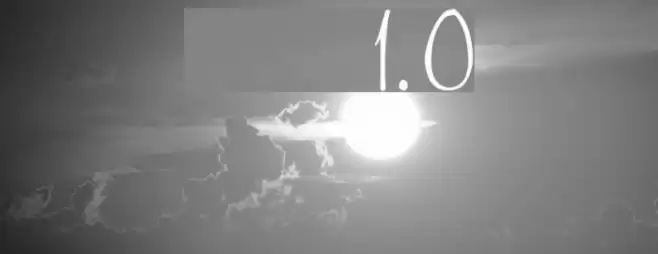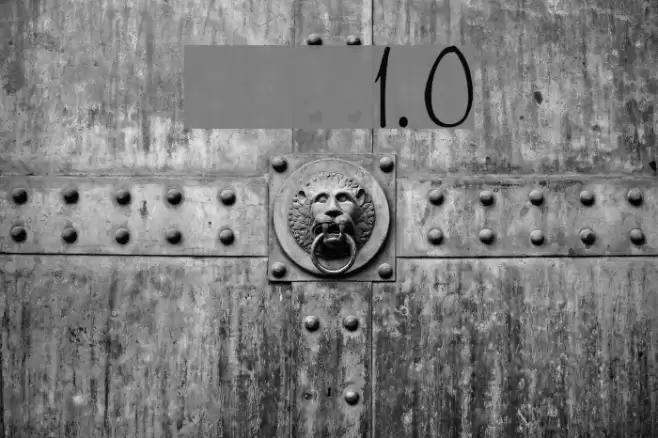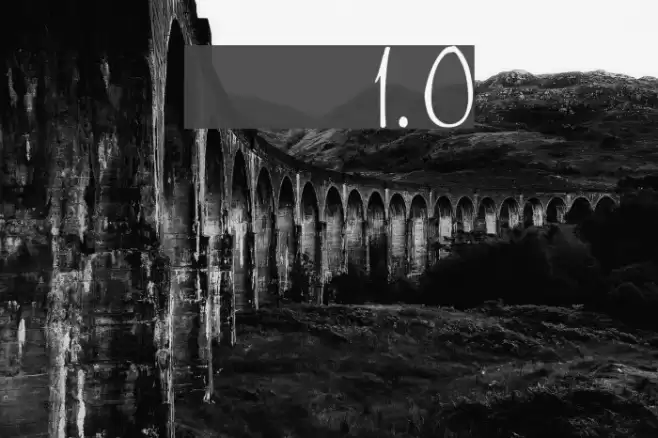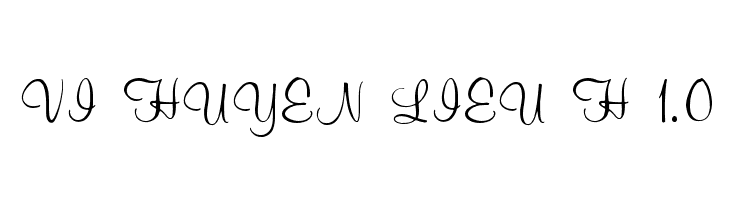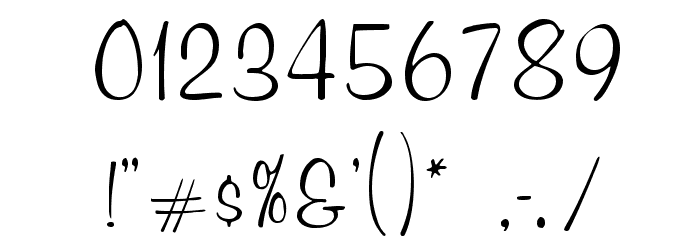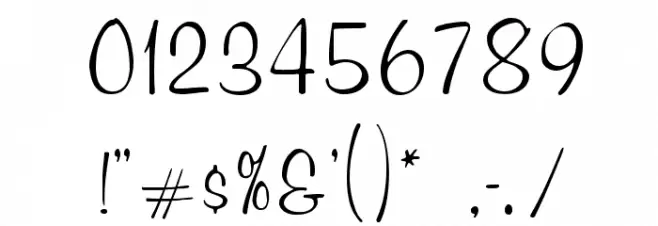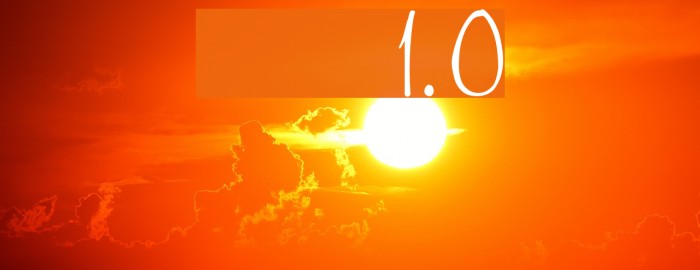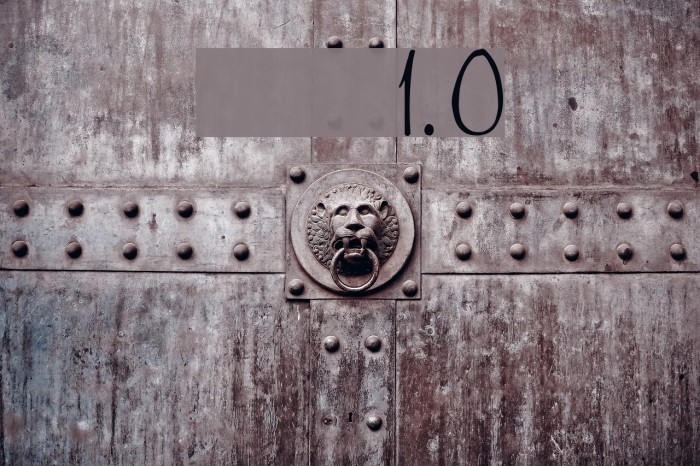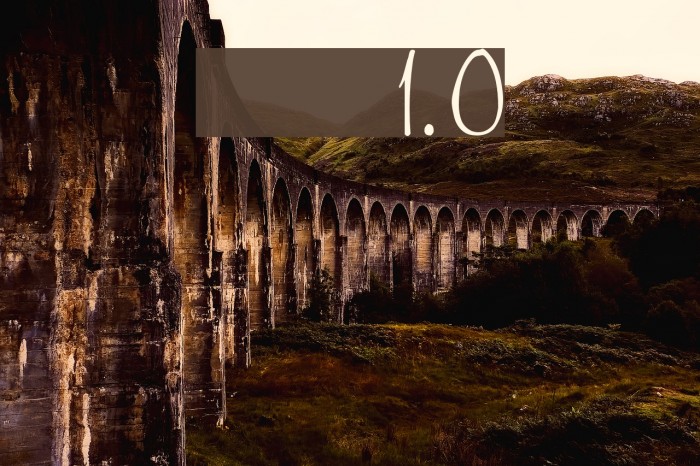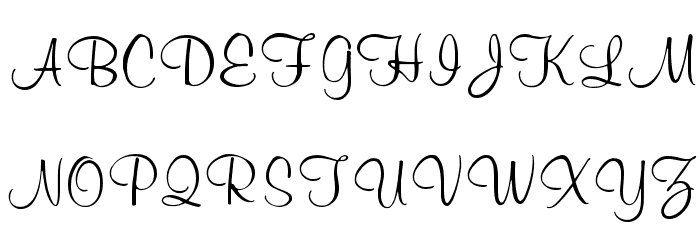
VI Huyen lieu H 1.0 Font
VI Huyen lieu H 1.0 Description
This elegant script font features a flowing, cursive style with smooth, rounded edges and graceful curves. The uppercase letters are ornate and sophisticated, with each character exhibiting a unique flair that adds to the overall charm. The lowercase letters maintain a consistent style, offering a harmonious blend of loops and swashes. Numbers are clear and legible, while special characters retain the font's signature elegance. The font's design is both decorative and functional, making it suitable for a variety of creative applications.
An elegant script font with flowing, cursive characters and graceful curves from Uncategorized fonts.